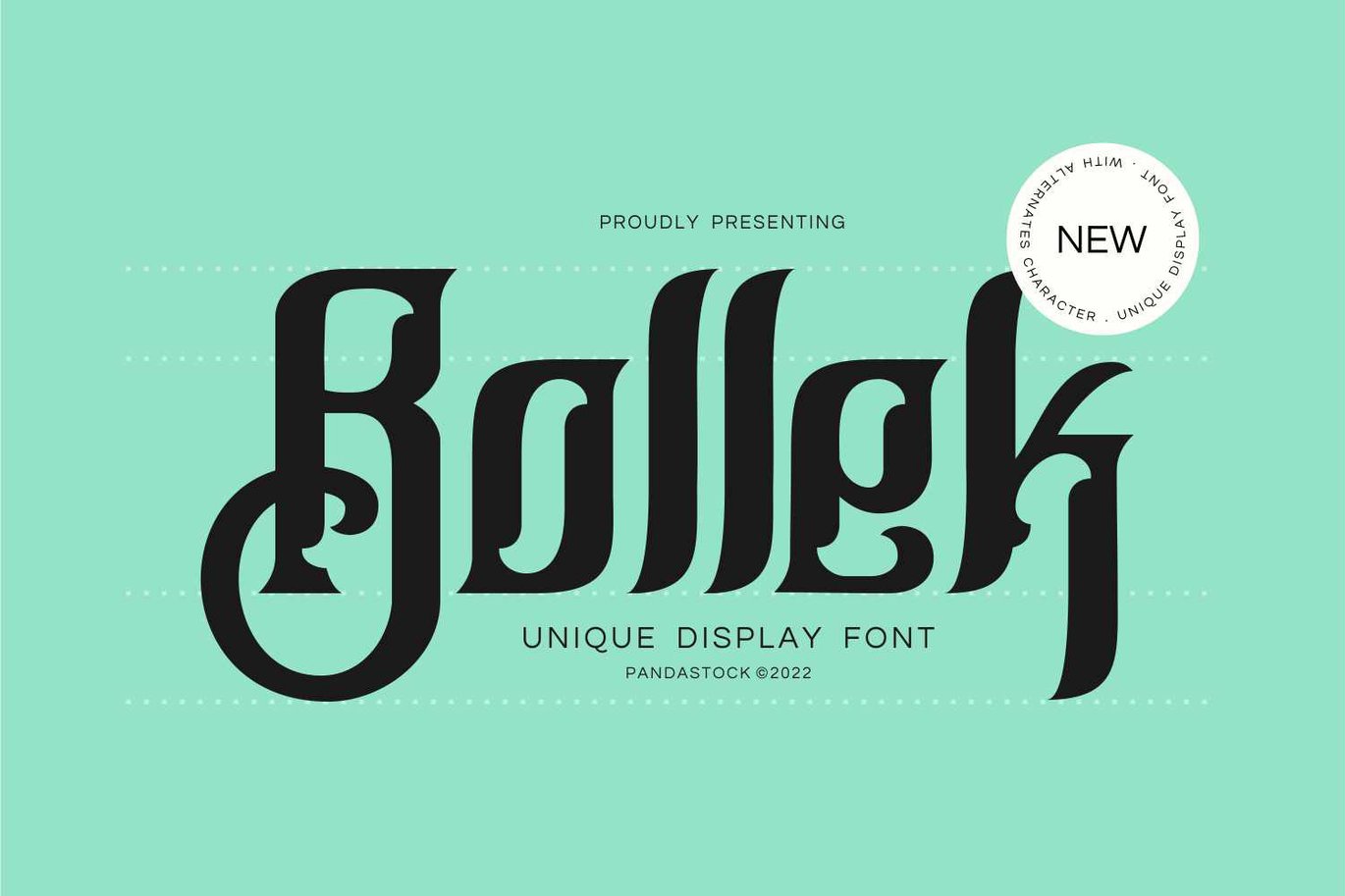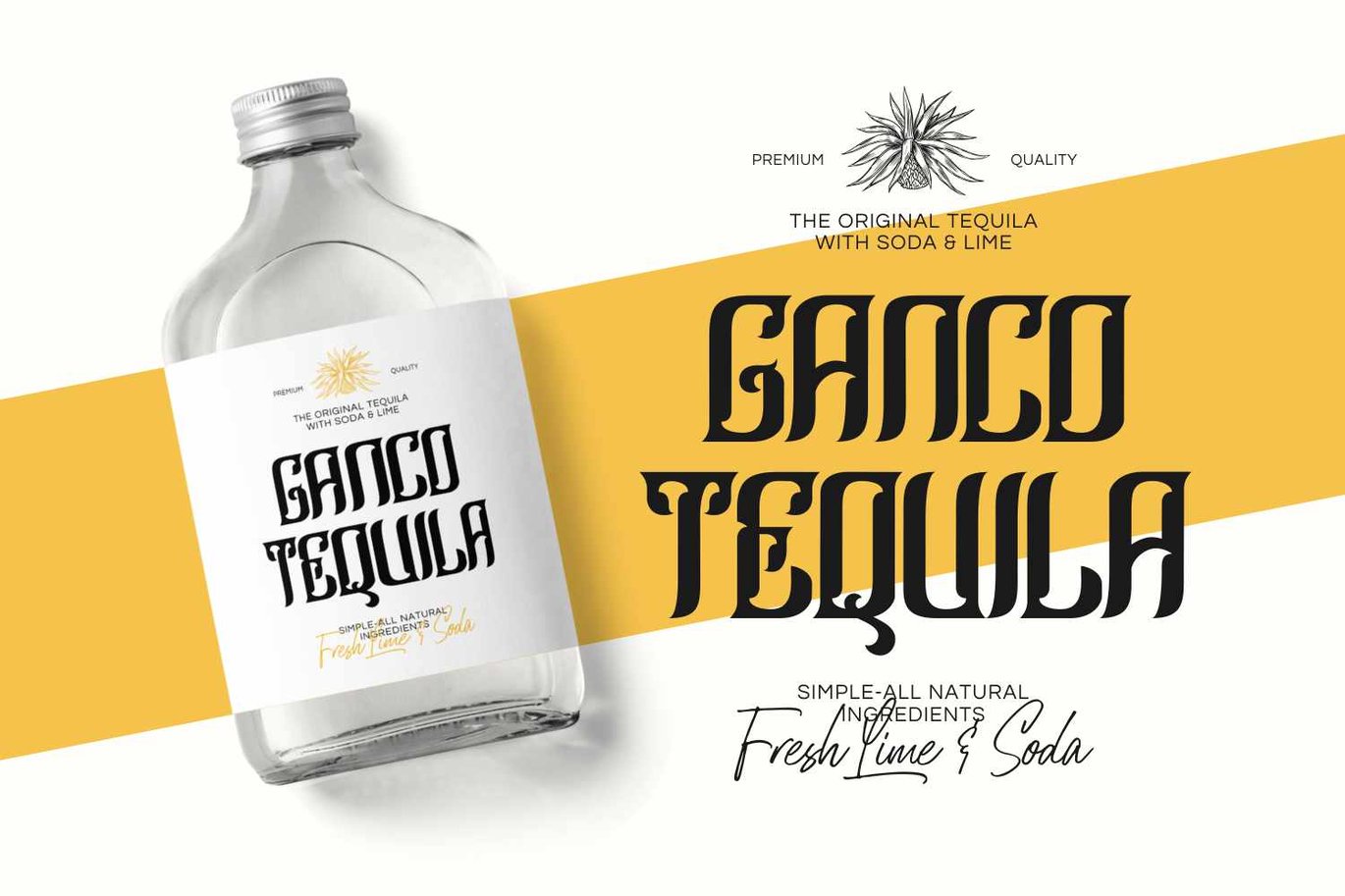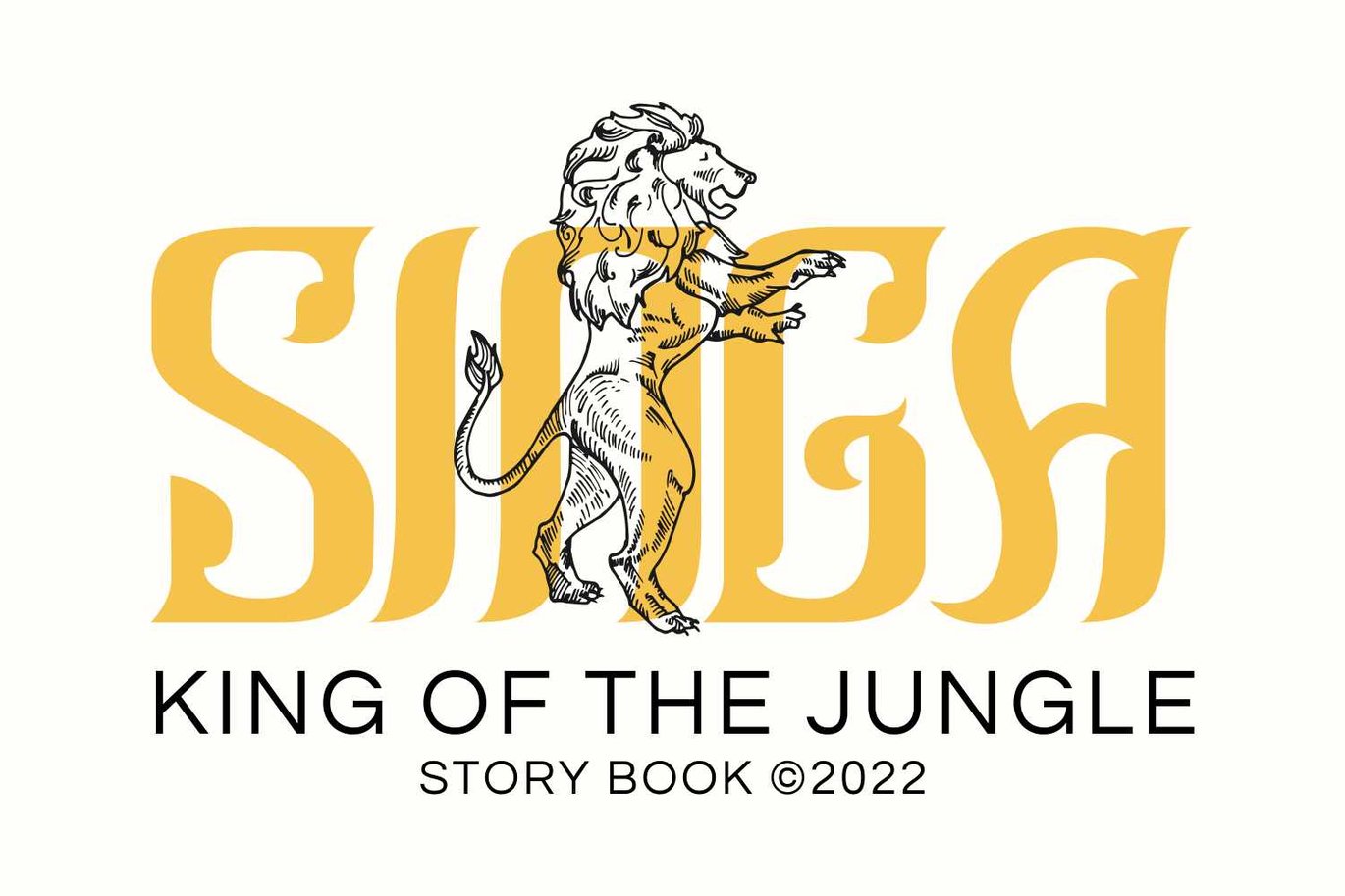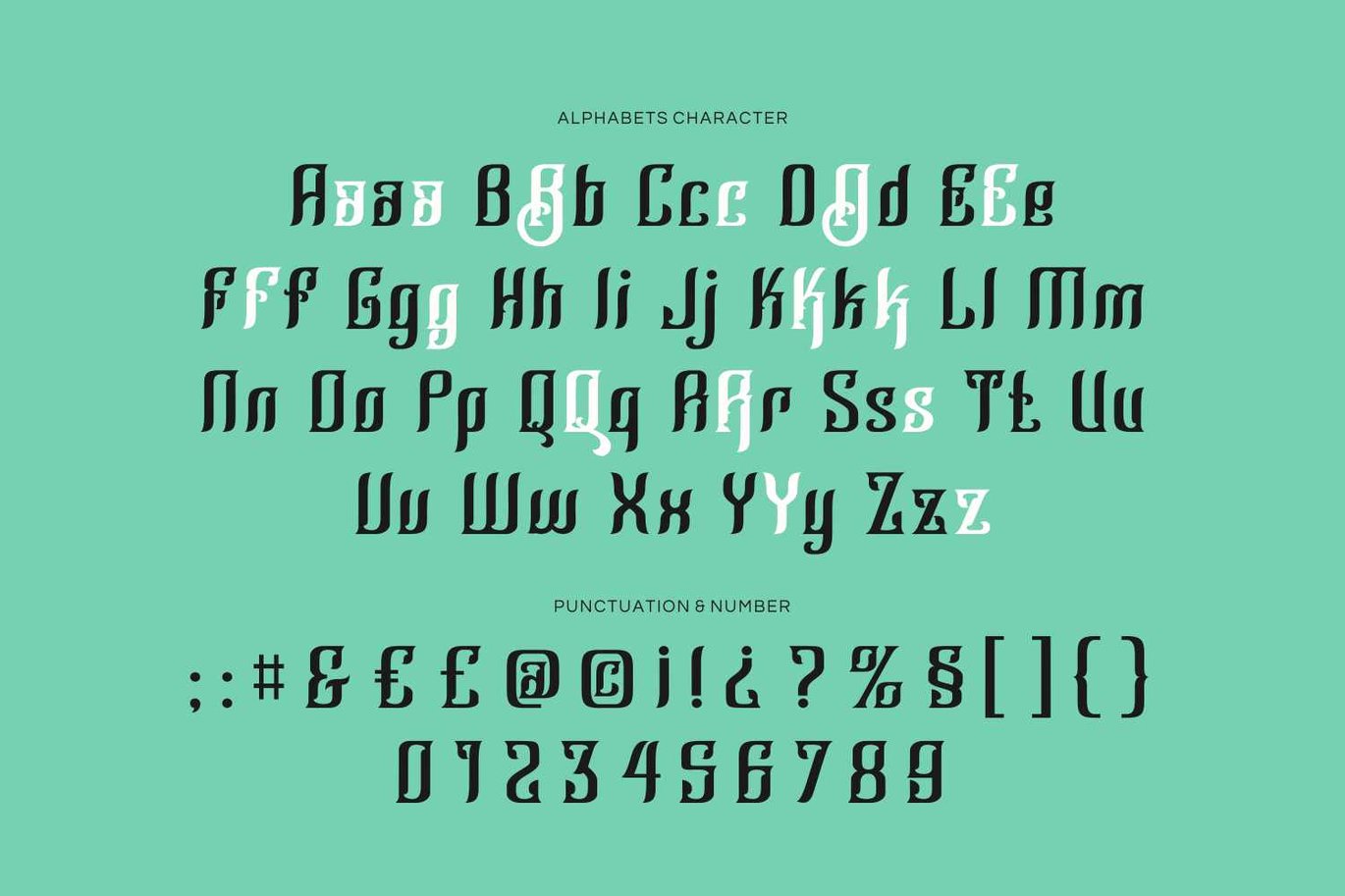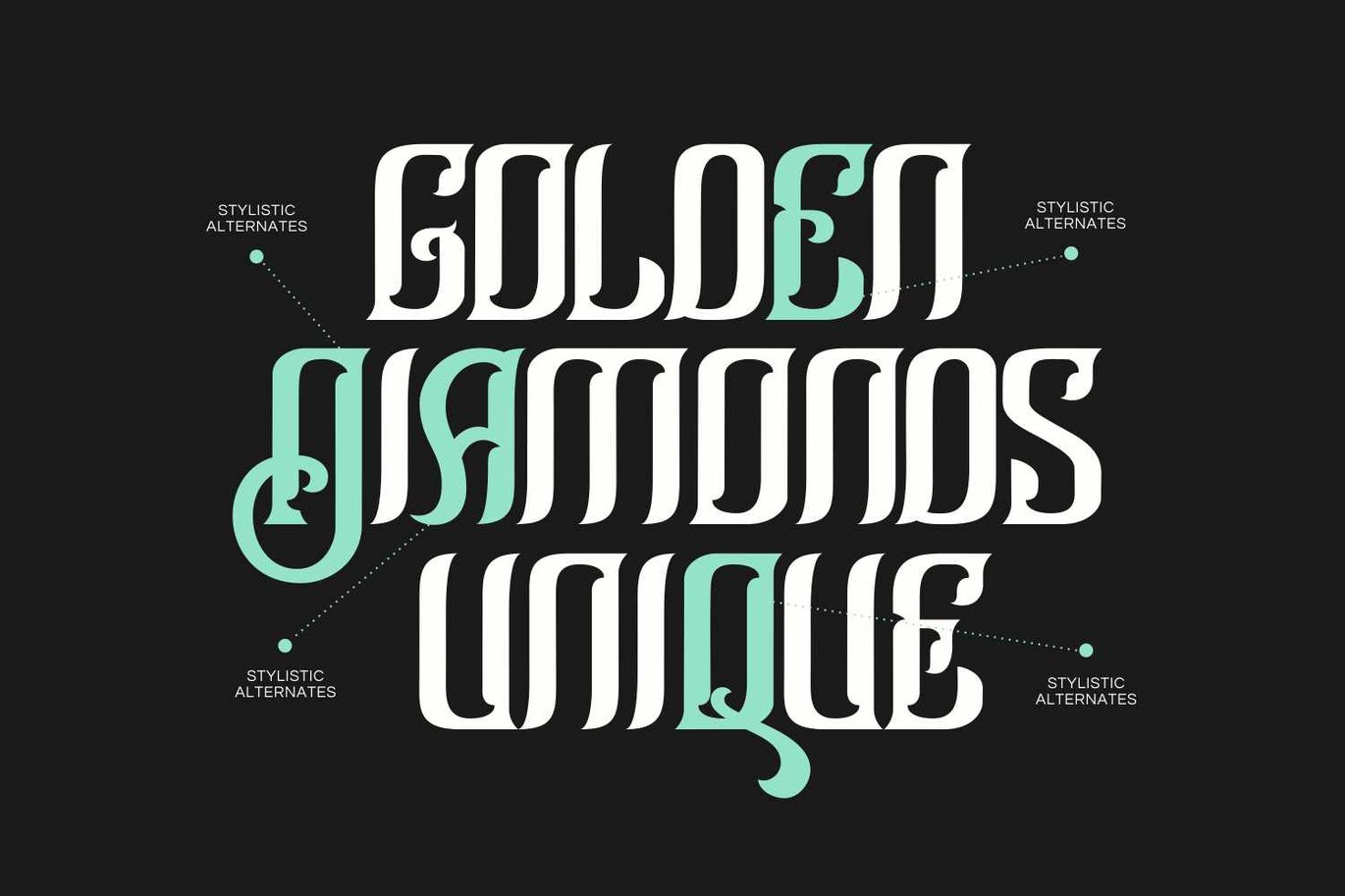
Bollek – Blackletter Typeface
Bollek is a font inspired by the Blackletter typeface (also sometimes referred to as gothic, fraktur or old english), made with a modern impression but still looks strong and unique.
Supported by alternative options such as swash, ligature and alternative characters, making this font very easy to create designs with strong or dark themes.
Use this font for any crafting project that requires a personalized look! Suitable for use in making music album cover designs, tattoo logos, wishkey labels, packaging pomades and so on which are made with dark and strong concepts.